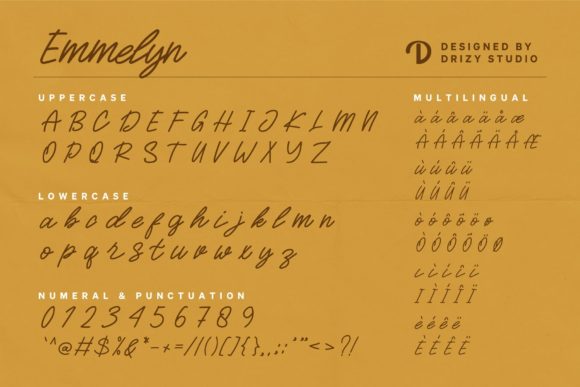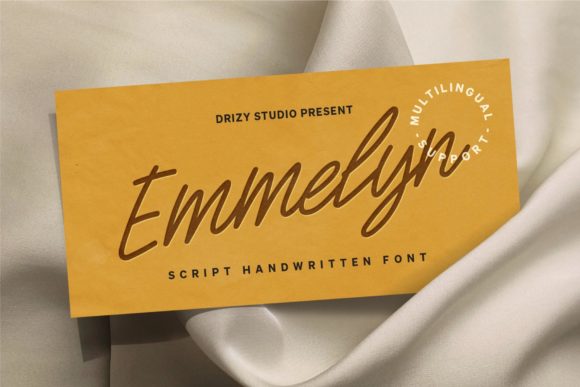
Introducing Emmelyn Font: The Perfect Script Font for Your Creative Projects
Are you a designer or crafter looking for a stylish and classy script font to add a personal touch to your projects? Look no further than Emmelyn Font! This simple yet elegant font offers all the basic styles you need to make your project a success. In this article, we’ll take a closer look at Emmelyn Font and explore its features, benefits, and uses.
What is Emmelyn Font?
Emmelyn Font is a beautiful script font designed to provide a handwritten touch to your creative projects. Its simple and clean design makes it perfect for a wide range of applications, from crafting and DIY projects to branding and marketing materials. With Emmelyn Font, you can add a personal and elegant touch to your work, making it stand out from the crowd.
Key Features of Emmelyn Font
So, what makes Emmelyn Font so special? Here are some of its key features:
- Simple and Elegant Design: Emmelyn Font boasts a simple yet elegant design that makes it perfect for a wide range of creative projects.
- Basic Styles: This font offers all the basic styles you need, including uppercase and lowercase letters, numbers, and punctuation marks.
- Handwritten Touch: Emmelyn Font provides a beautiful handwritten touch that adds a personal and unique feel to your projects.
- Stylish and Classy: This font is perfect for designers and crafters who want to add a touch of style and class to their work.
Benefits of Using Emmelyn Font
So, why should you choose Emmelyn Font for your creative projects? Here are some of its benefits:
- Easy to Read: Emmelyn Font is easy to read, making it perfect for body text and headings.
- Versatile: This font is versatile and can be used for a wide range of creative projects, from crafting and DIY projects to branding and marketing materials.
- Time-Saving: With Emmelyn Font, you can save time and effort by using a pre-designed font that looks great and works well.
- Unique and Personal: Emmelyn Font provides a unique and personal touch to your projects, making them stand out from the crowd.
Uses of Emmelyn Font
So, what can you use Emmelyn Font for? Here are some ideas:
- Crafting and DIY Projects: Emmelyn Font is perfect for crafting and DIY projects, such as handmade cards, invitations, and gift tags.
- Branding and Marketing Materials: This font can be used for branding and marketing materials, such as logos, business cards, and brochures.
- Social Media Graphics: Emmelyn Font can be used to create social media graphics, such as Facebook posts, Instagram stories, and Twitter headers.
- Web Design: This font can be used for web design, including website headers, paragraphs, and headings.
In conclusion, Emmelyn Font is a beautiful script font that offers a simple yet elegant design, basic styles, and a handwritten touch. Its benefits include ease of reading, versatility, and uniqueness. With Emmelyn Font, you can add a personal and stylish touch to your creative projects, making them stand out from the crowd. Whether you’re a designer or crafter, Emmelyn Font is a great choice for any project that needs a touch of elegance and class.